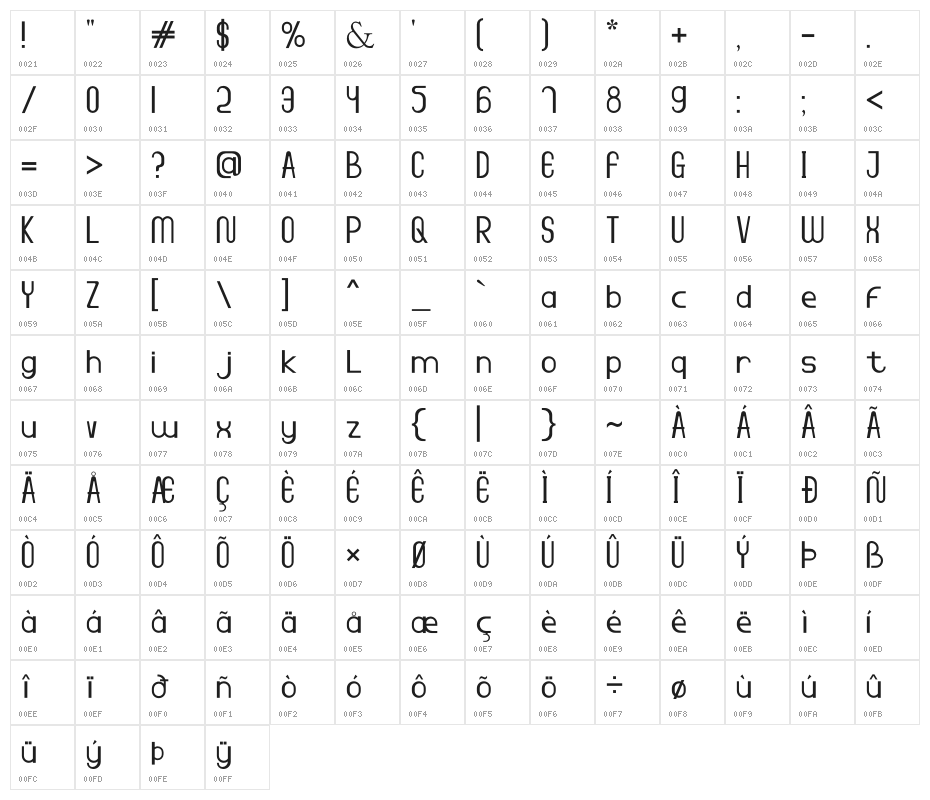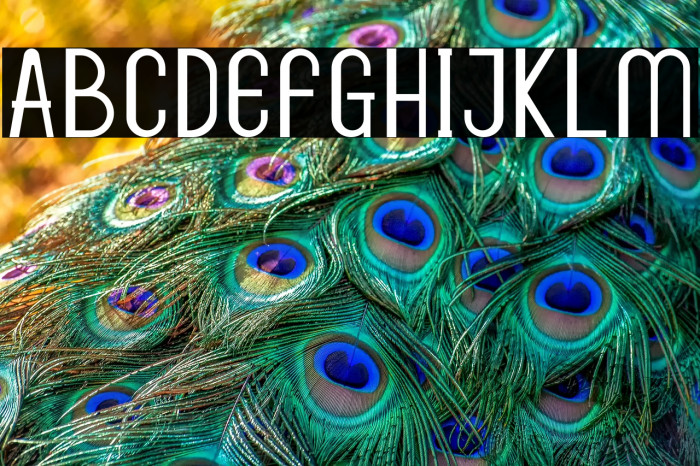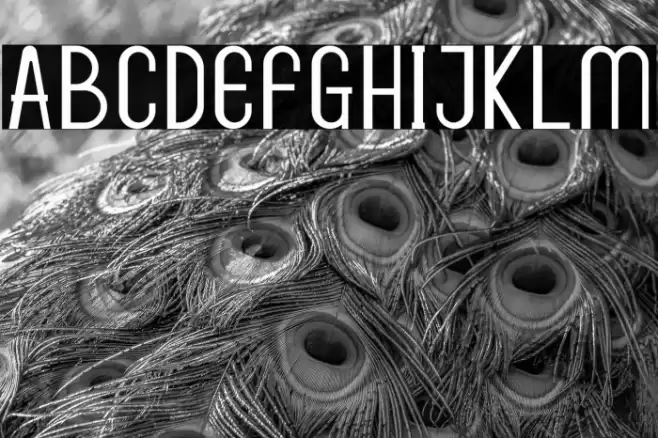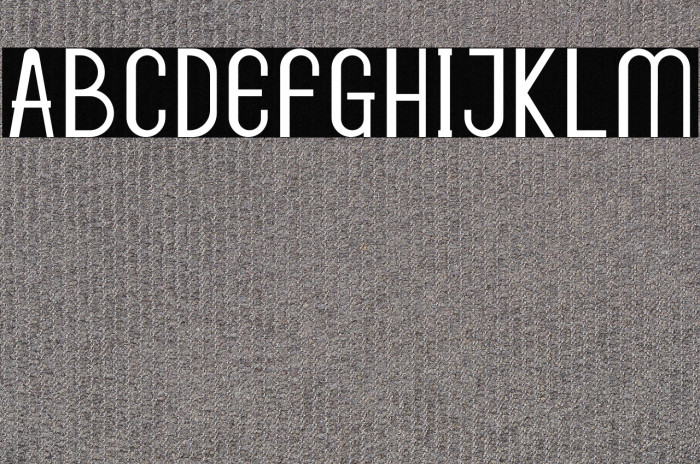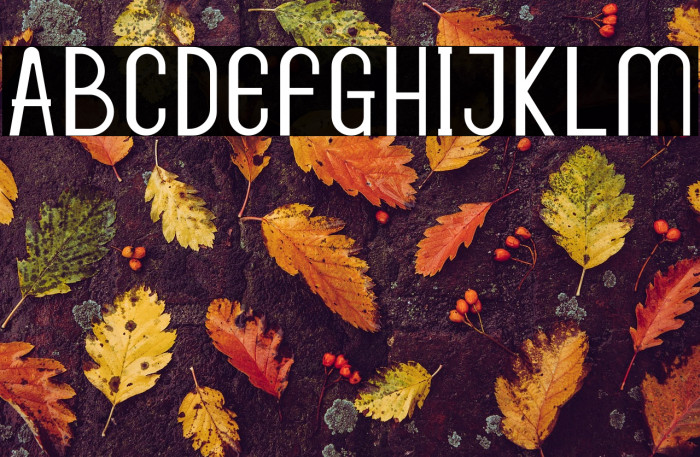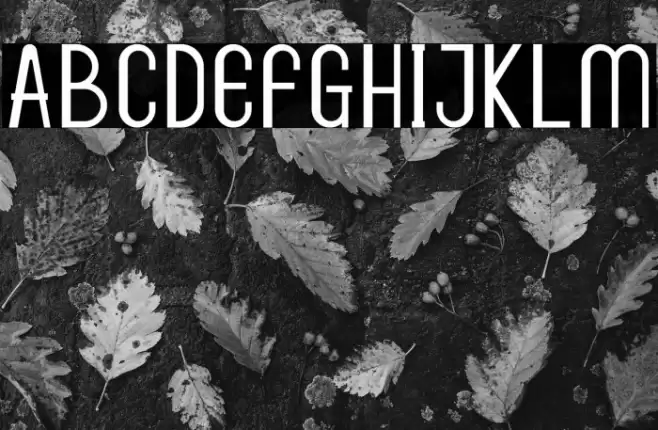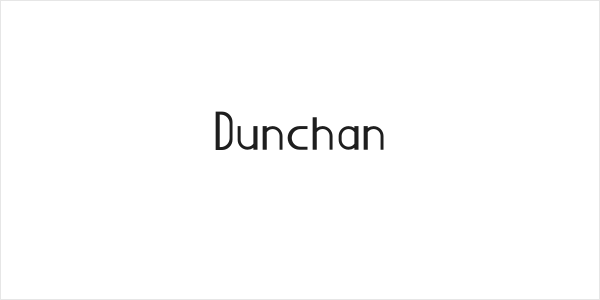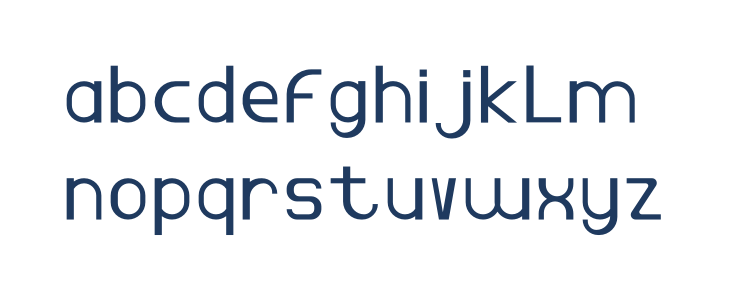
Dunchan Font
Dunchan Description
This font features a modern and sleek design with rounded edges and a geometric structure. The uppercase letters are uniform in height, providing a clean and organized appearance. Lowercase letters maintain a consistent style, with smooth curves and a balanced weight. The numerals are distinct and easy to read, complementing the overall aesthetic. Special characters are well-integrated, maintaining the font's cohesive look. The design is versatile, suitable for both digital and print media, offering a contemporary feel that is both professional and approachable.